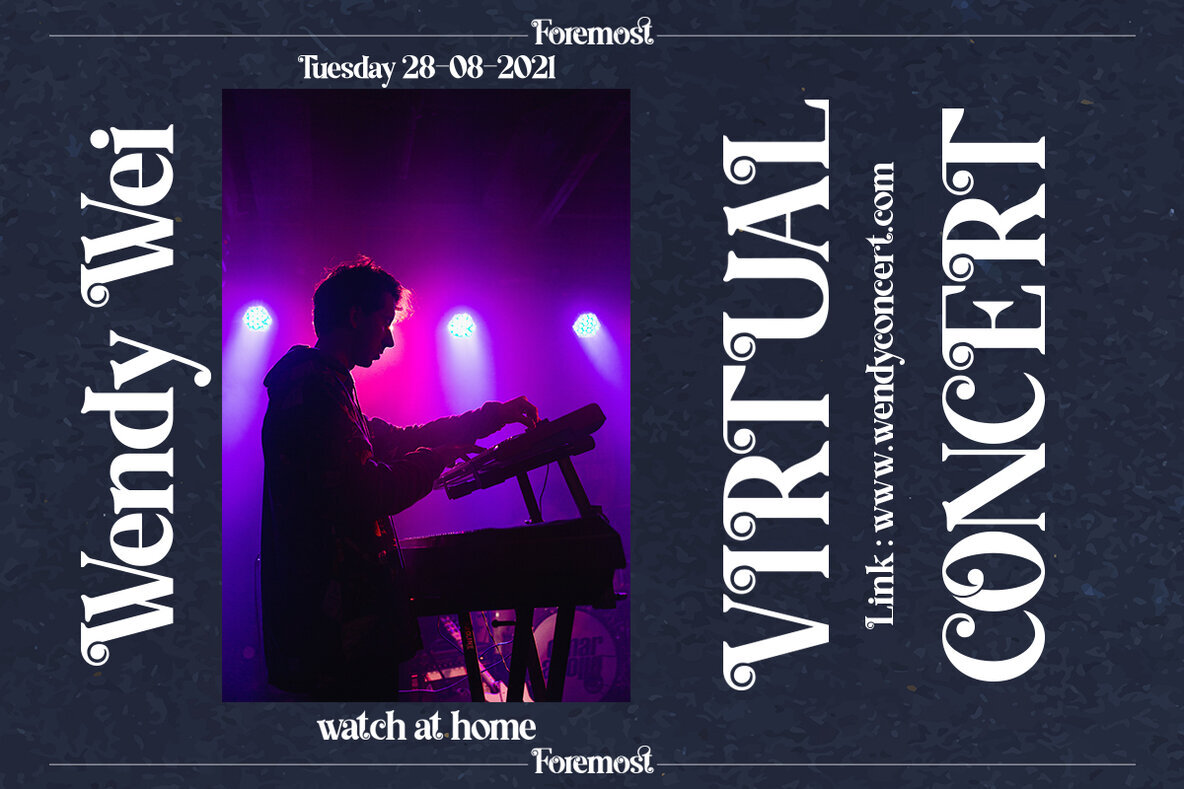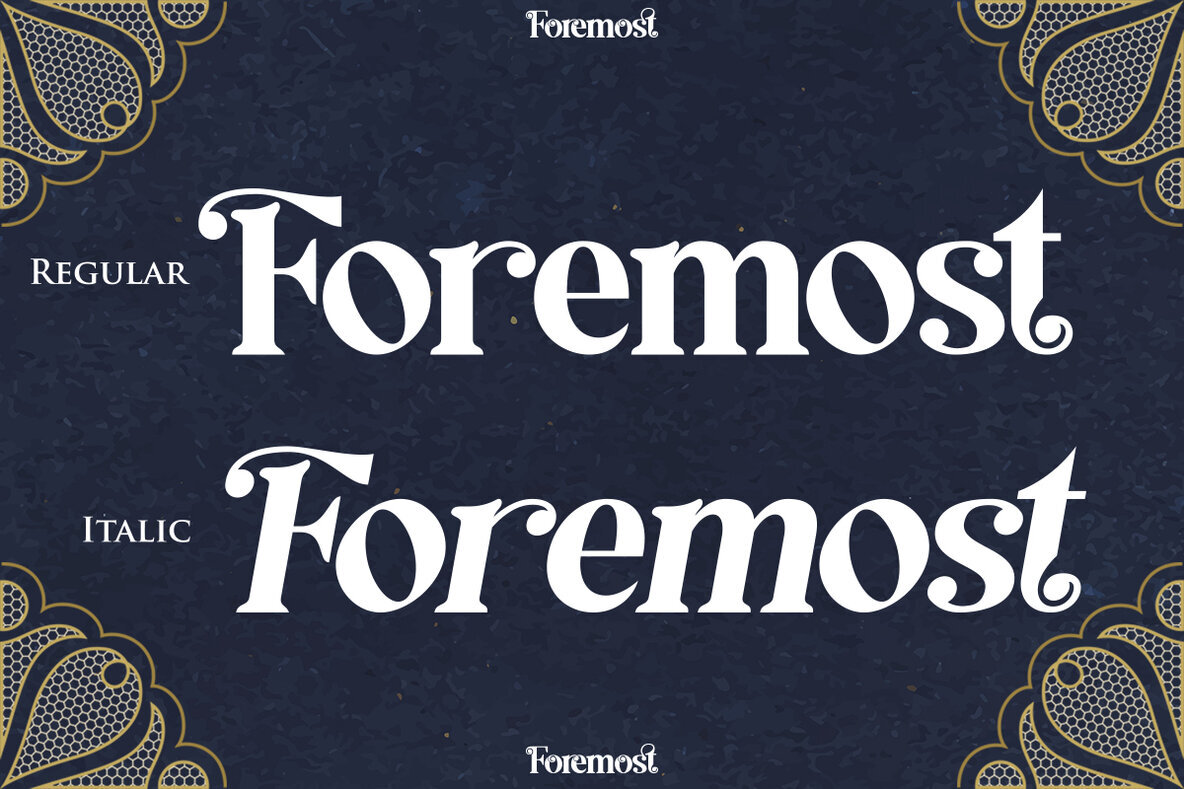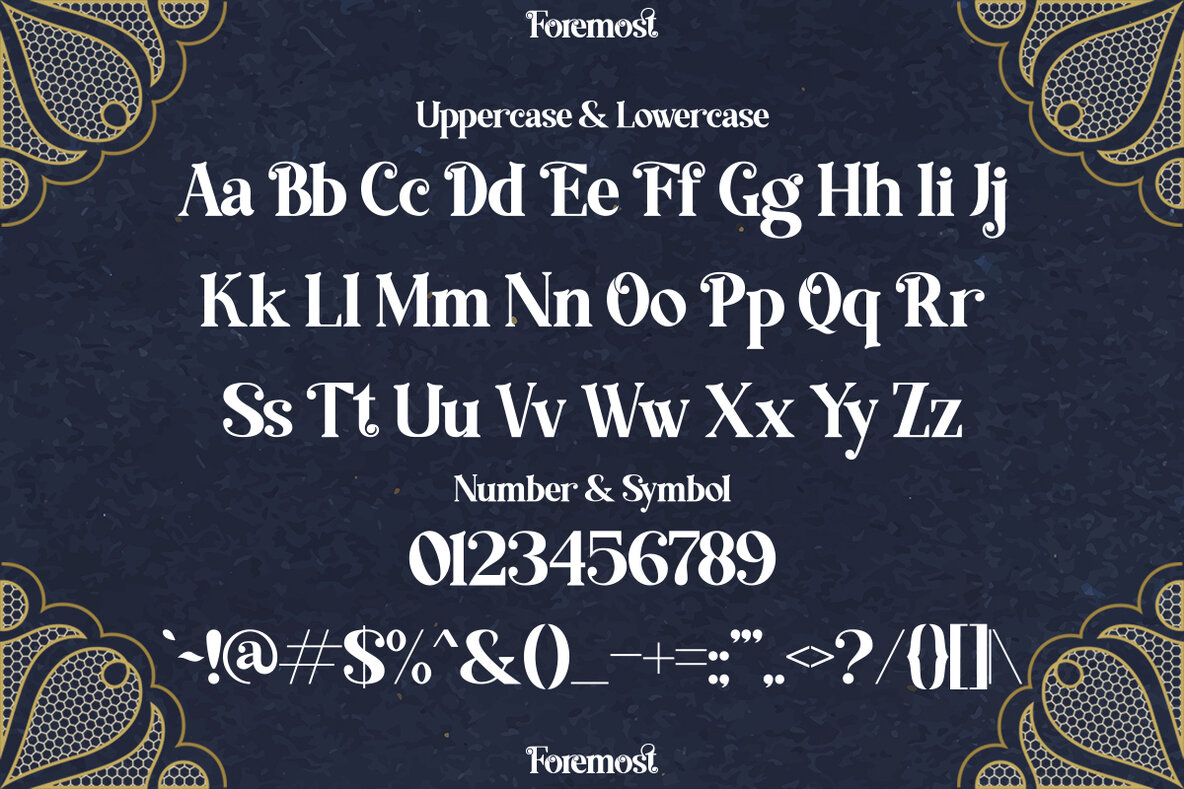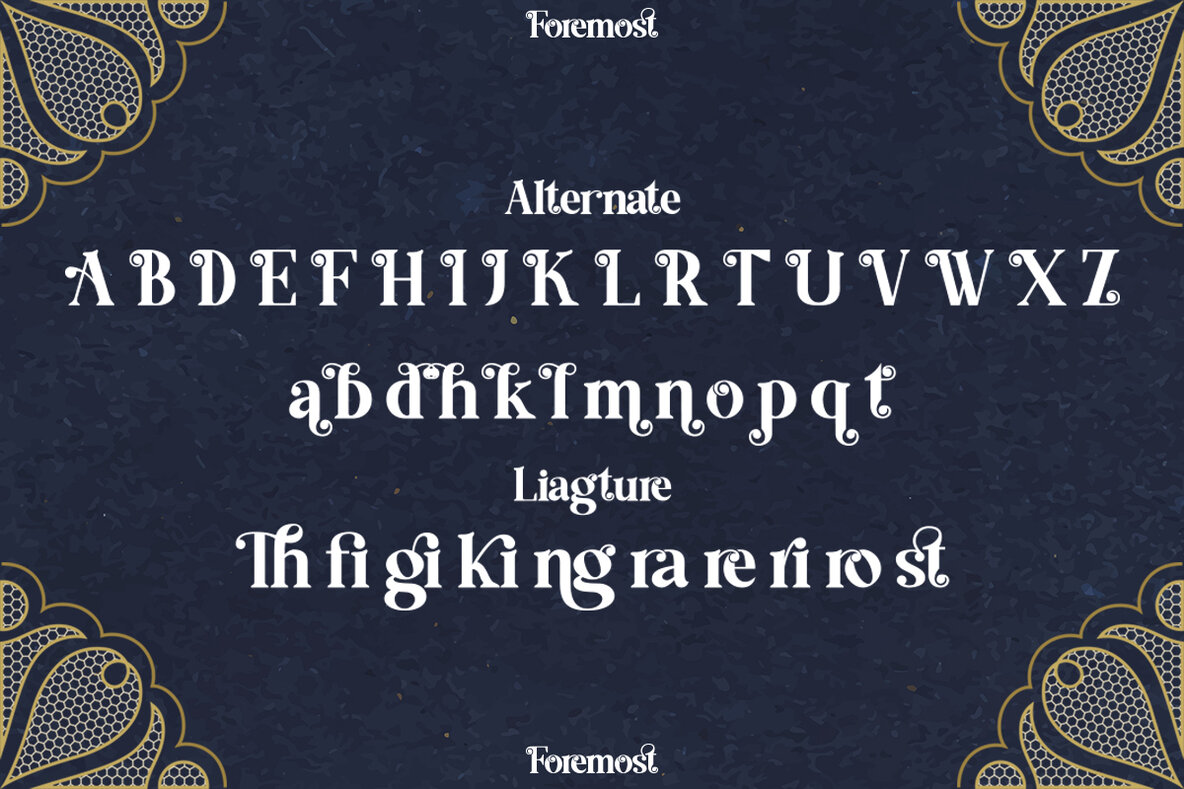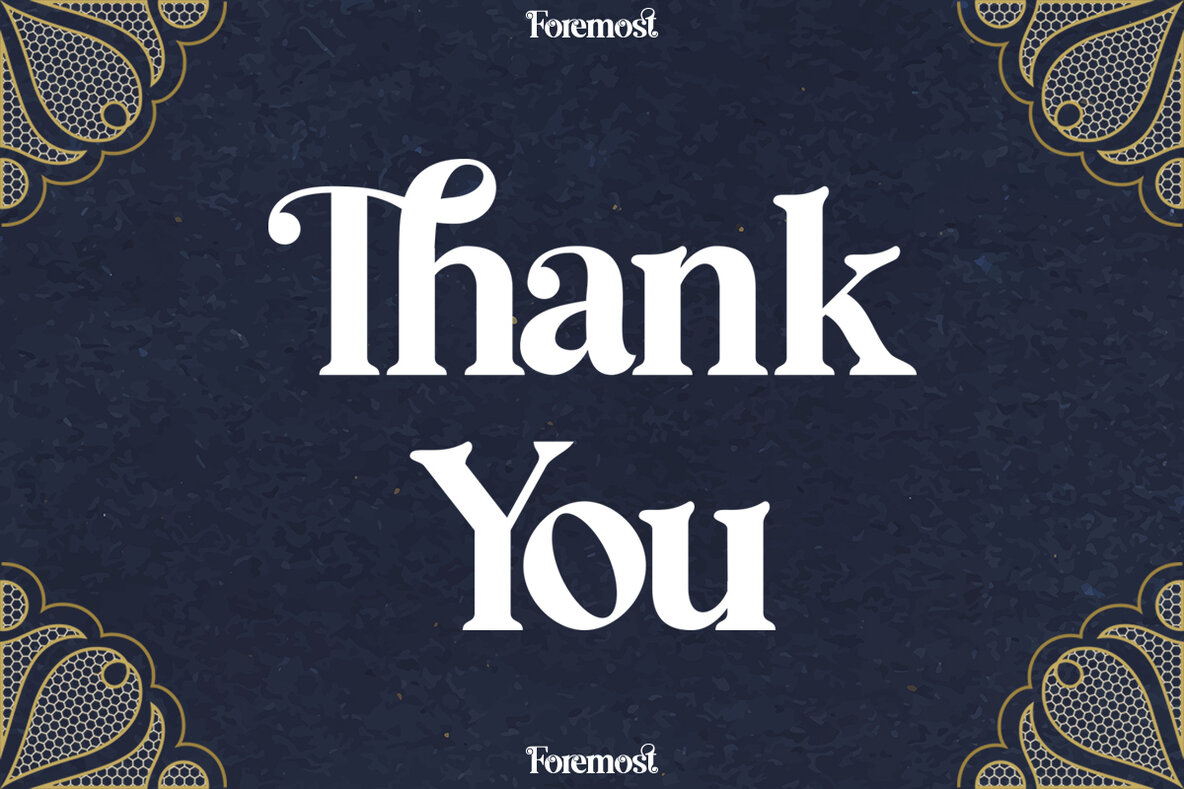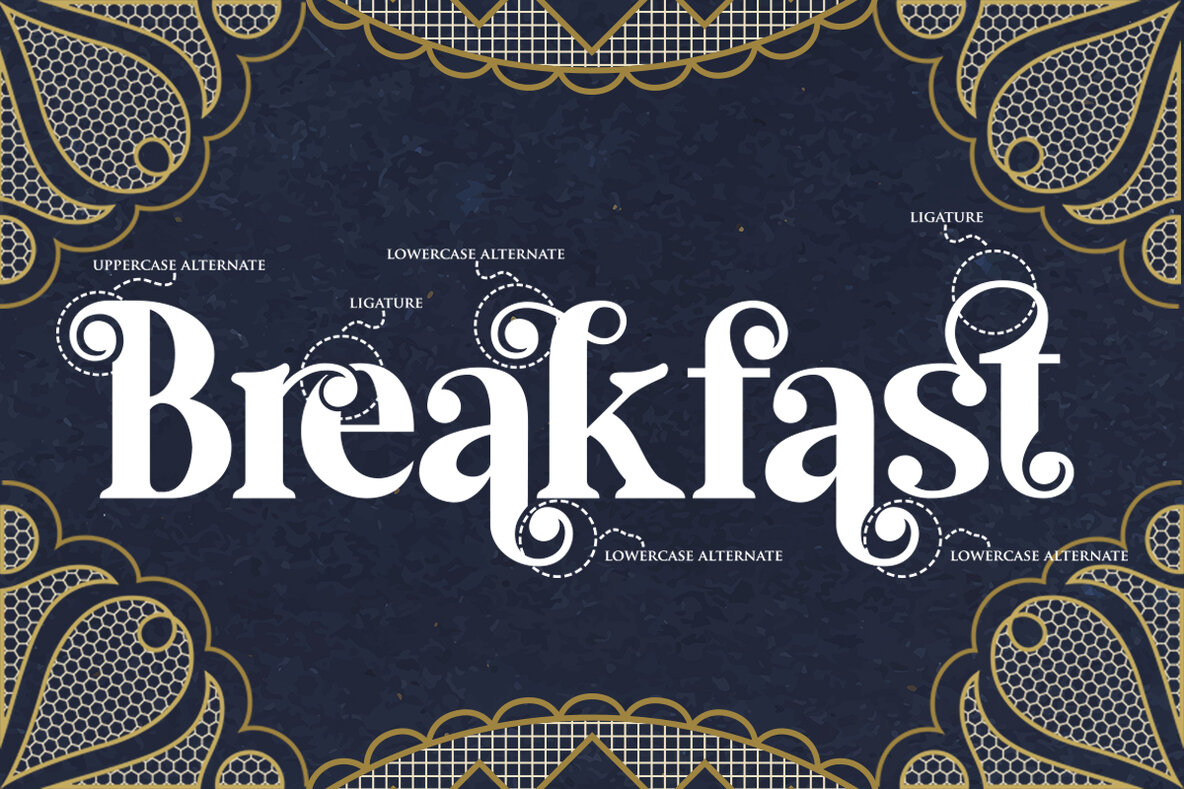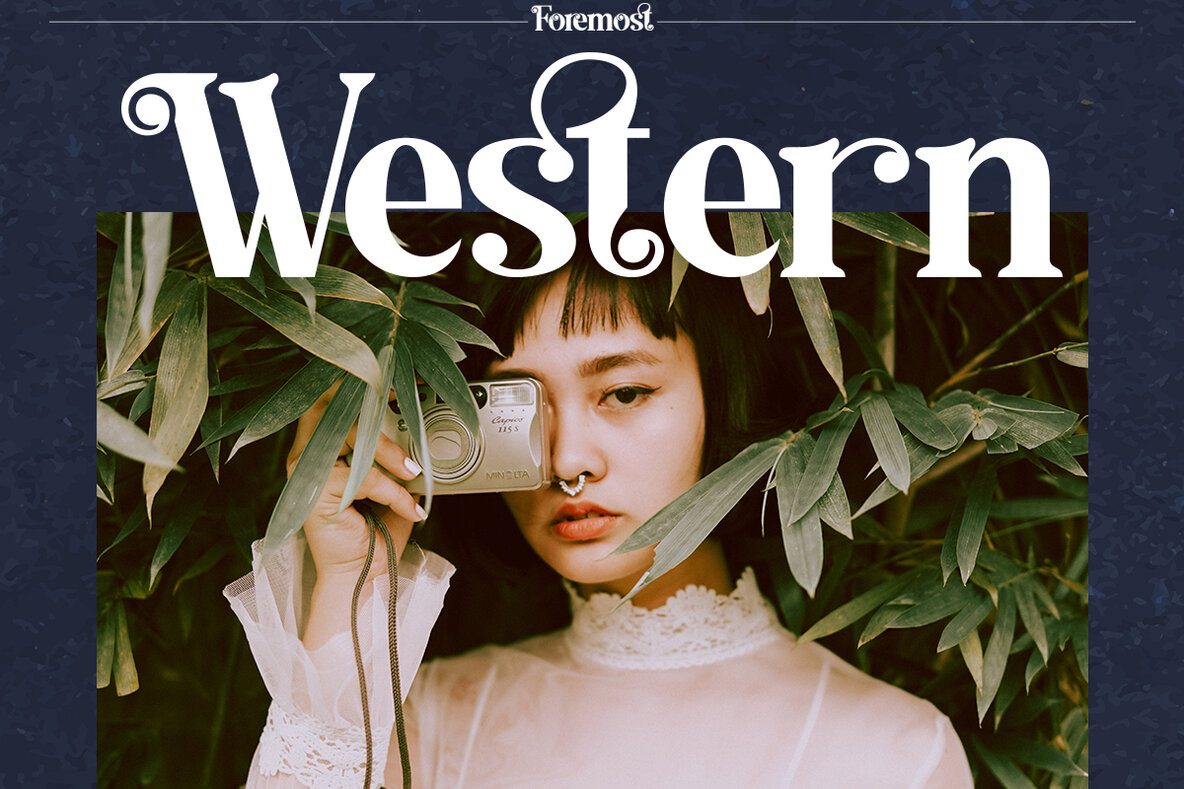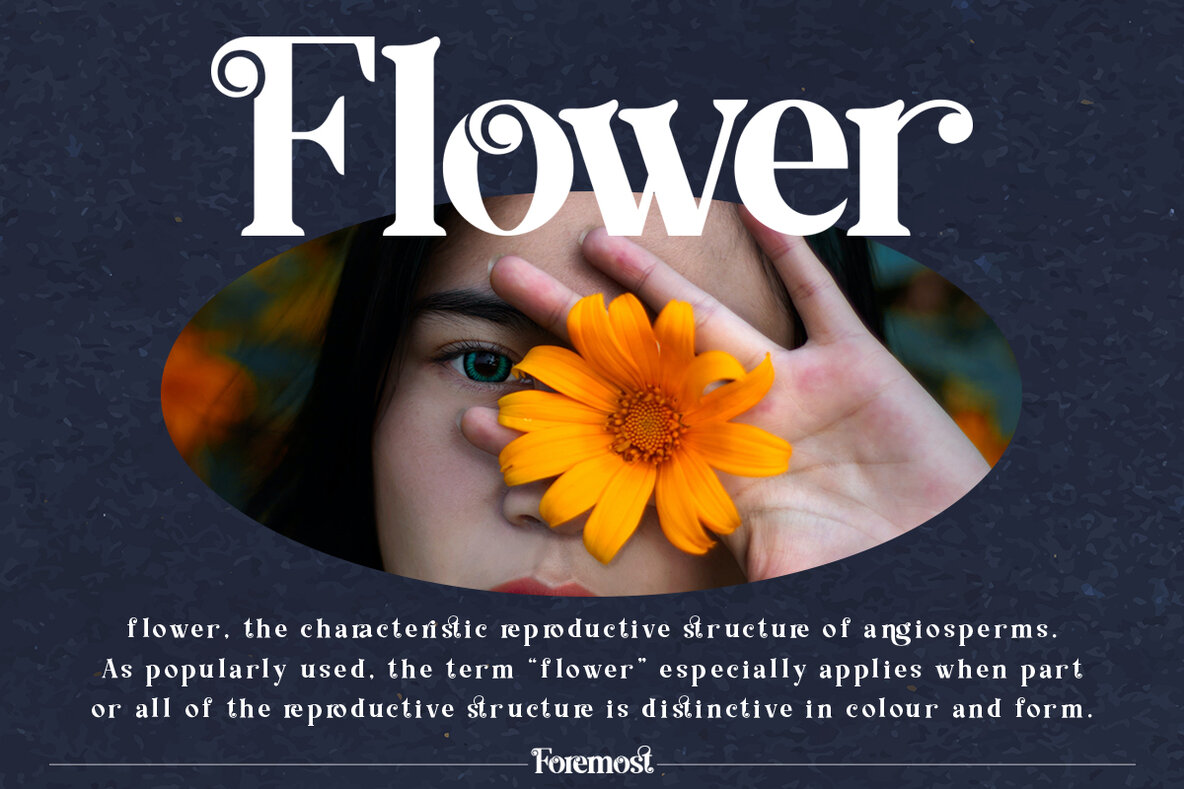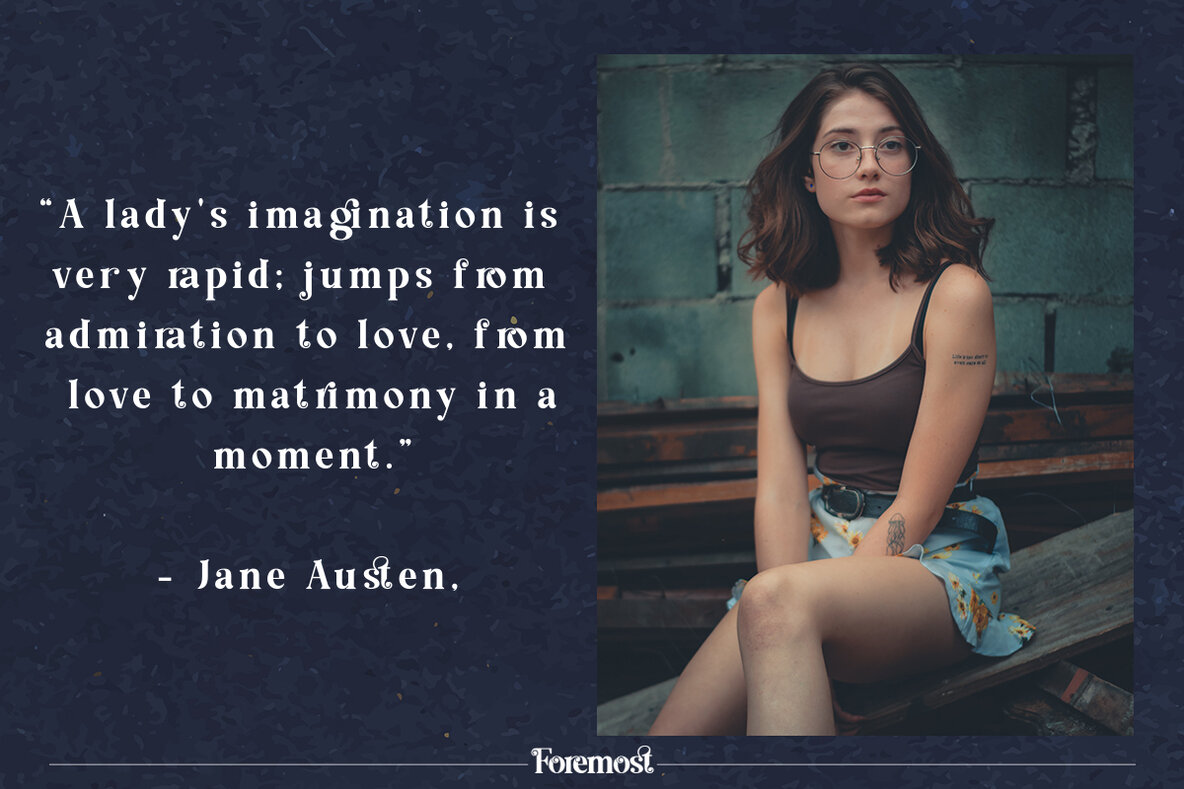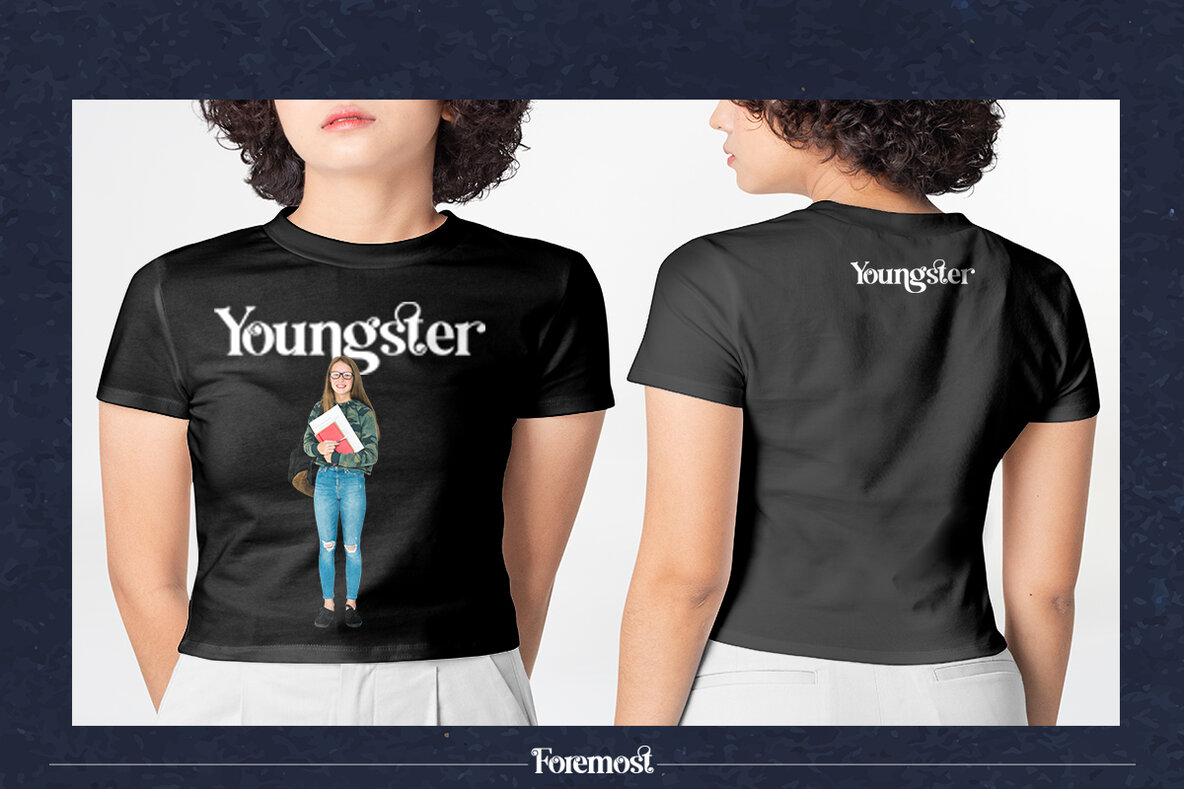
Foremost Font
Foremost Regular
Foremost Italic
Foremost is a refined typeface from Sohel Studio, offering a harmonious blend of boldness and elegance. Its clean lines and smooth curves render it perfect for both large-scale display and smaller settings, making it an ideal choice for headings, logos, and more. As a serif typeface, Foremost offers a unique style that seamlessly combines modernity with traditional elements, adding a touch of class to any project.Foremost: Classy Bold Typeface for Logos and Headings